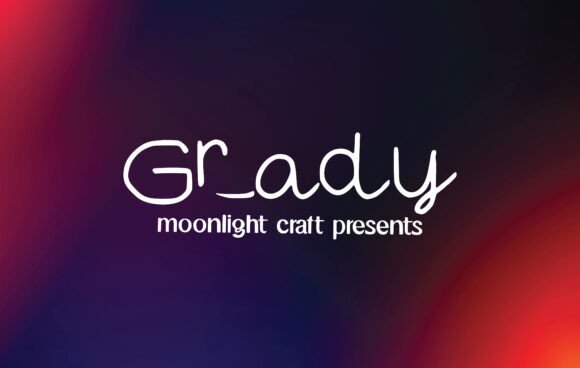
Introducing Grady Font: Elevate Your Creative Projects with a Lovely Handwritten Style
Are you looking for a font that can add a touch of elegance and sophistication to your creative projects? Look no further than Grady Font. This beautiful handwritten font has the potential to take your ideas to the highest level, making it the perfect choice for creating eye-catching logos, branding, and quotes.
What Makes Grady Font Stand Out?
Grady Font is a unique and lovely handwritten font that offers a range of features that make it perfect for creative projects. Some of its key features include:
- Beautiful Handwritten Style: Grady Font has a beautiful handwritten style that adds a touch of elegance and sophistication to any project.
- High Versatility: This font is highly versatile and can be used for a wide range of projects, from logos and branding to quotes and social media graphics.
- Easy to Read: Despite its elegant style, Grady Font is easy to read, making it perfect for use in body text as well as headings.
- Unique Character Set: Grady Font has a unique character set that includes a range of letters, numbers, and punctuation marks, making it perfect for creating custom designs.
What Can You Use Grady Font For?
Grady Font is a highly versatile font that can be used for a wide range of projects, including:
- Logo Design: Grady Font is perfect for creating eye-catching logos that stand out from the crowd.
- Branding: This font can be used to create a consistent brand identity across a range of materials, from business cards to billboards.
- Quotes and Social Media Graphics: Grady Font is perfect for creating inspirational quotes and social media graphics that grab attention.
- Packaging Design: This font can be used to create eye-catching packaging designs that stand out on store shelves.
What are the Benefits of Using Grady Font?
There are many benefits to using Grady Font in your creative projects. Some of the key benefits include:
- Increased Creativity: Grady Font offers a unique and elegant style that can help to increase creativity and inspire new ideas.
- Improved Brand Identity: This font can be used to create a consistent brand identity that stands out from the crowd.
- Enhanced Visual Appeal: Grady Font has a beautiful handwritten style that adds a touch of elegance and sophistication to any project.
Tips for Using Grady Font Effectively
Here are some tips for using Grady Font effectively in your creative projects:
- Use it Sparingly: Grady Font is a beautiful font, but it can be overwhelming if used too much. Use it sparingly to create a sense of elegance and sophistication.
- Pair it with Other Fonts: Grady Font can be paired with other fonts to create a unique and interesting design.
- Experiment with Colors: This font looks great in a range of colors, so don’t be afraid to experiment and find the perfect color for your project.
- Pay Attention to Kerning: Make sure to pay attention to kerning when using Grady Font to ensure that your text looks professional and polished.
In conclusion, Grady Font is a beautiful handwritten font that has the potential to take your creative ideas to the highest level. Its elegant style, high versatility, and ease of use make it perfect for a wide range of projects, from logos and branding to quotes and social media graphics. By following the tips outlined above, you can use Grady Font effectively and create stunning designs that stand out from the crowd.